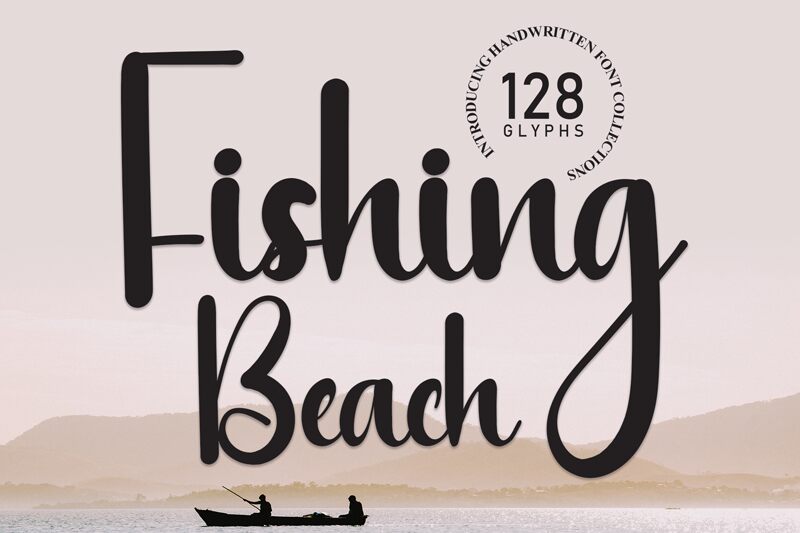
Fishing Beach
Fishing Beach, a creation by Scratchones, captures the casual elegance of a handwritten script with its fluid strokes and organic feel. Its characters dance with a gentle rhythm, exuding warmth and a personal touch that seems to tell a story in every line. The font's charming irregularities and humanistic qualities make it ideal for designs seeking to convey intimacy and authenticity.
Perfect for branding projects, invitations, or any context that benefits from an artisanal flair, Fishing Beach offers an inviting presence that enhances the narrative of your design. This font is particularly suited for settings where a handcrafted aesthetic is desired to connect with the audience on a more personal level.